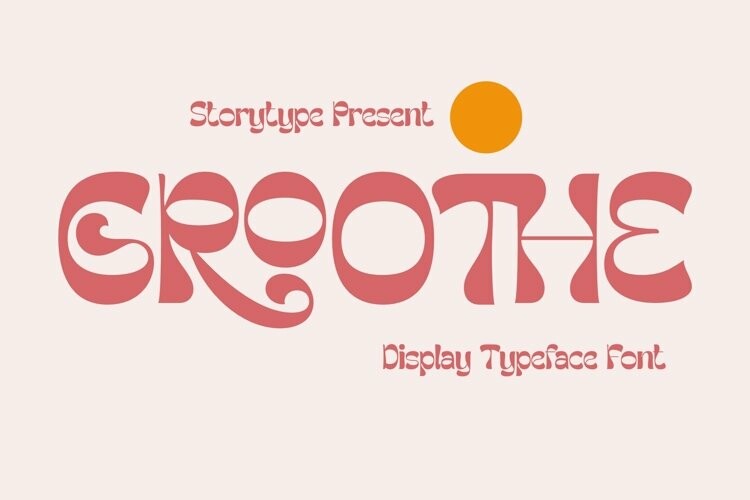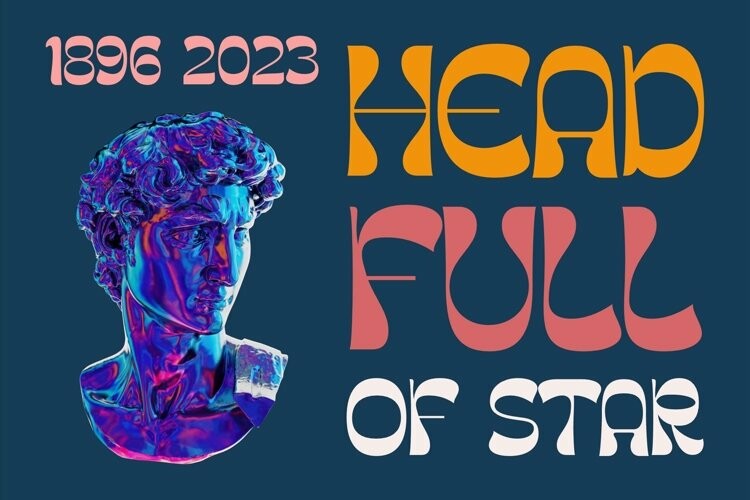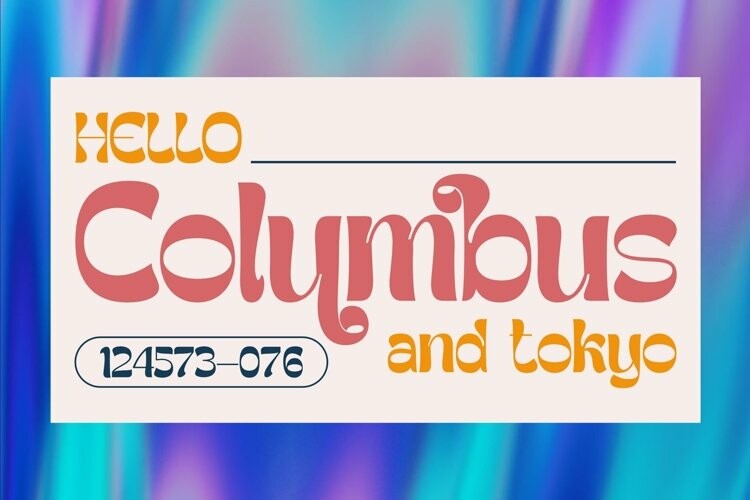
Groothe Font
Groothe FontThis typeface is perfect for an elegant & luxury logo, book or movie title design, fashion brand, magazine, clothes, lettering, quotes, and so much more.